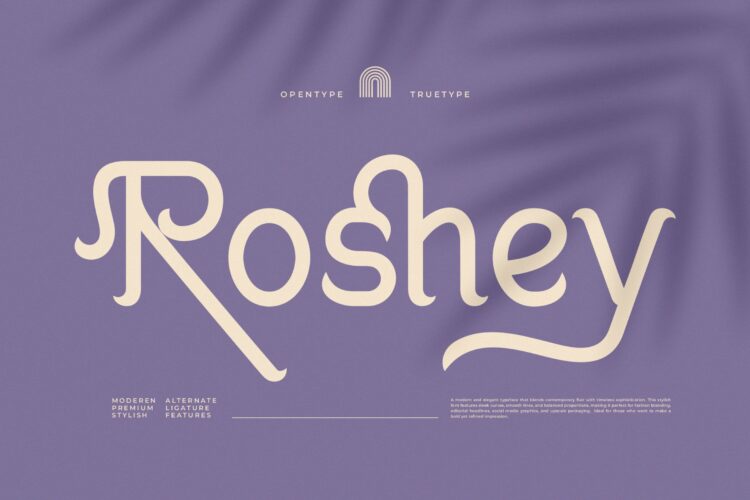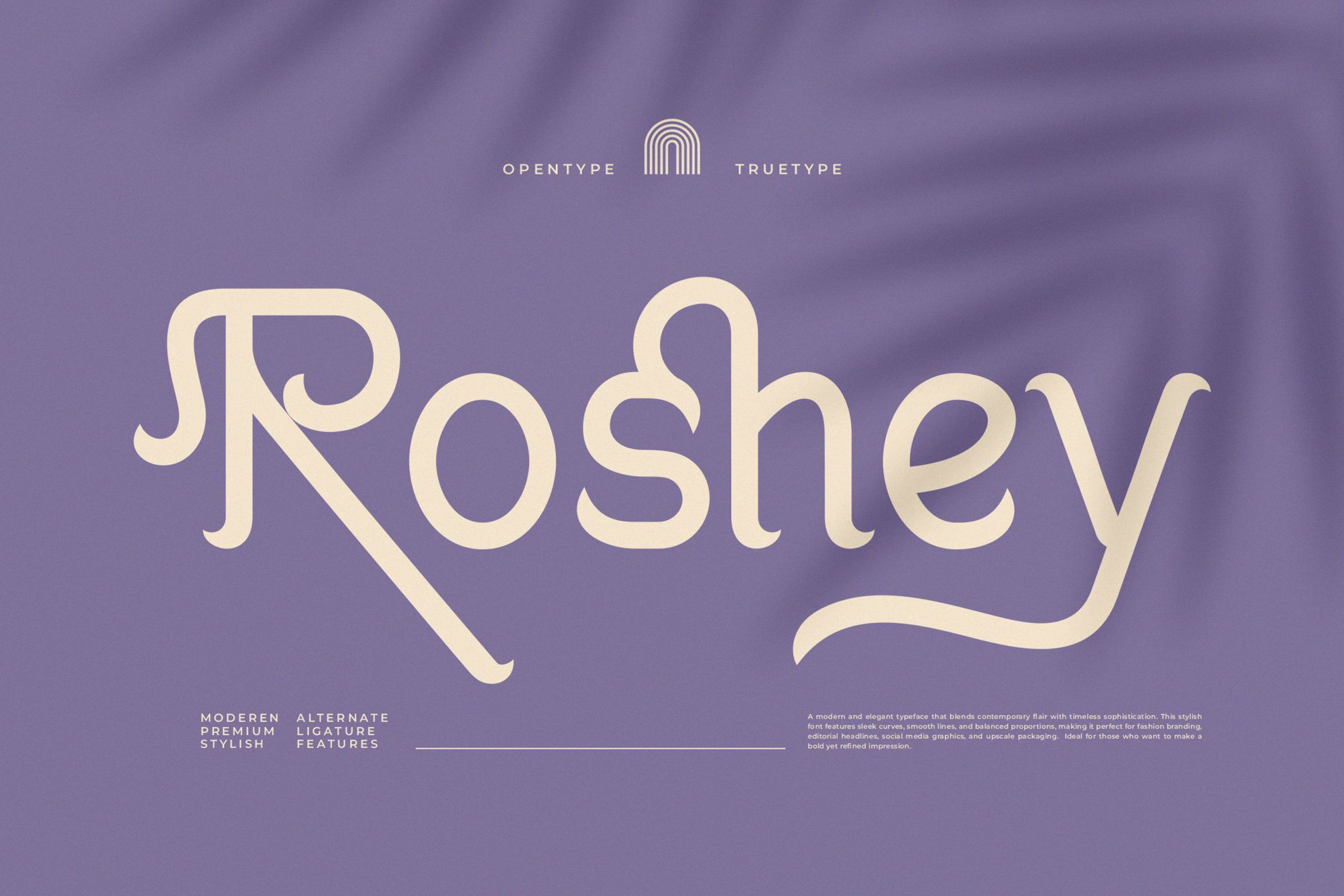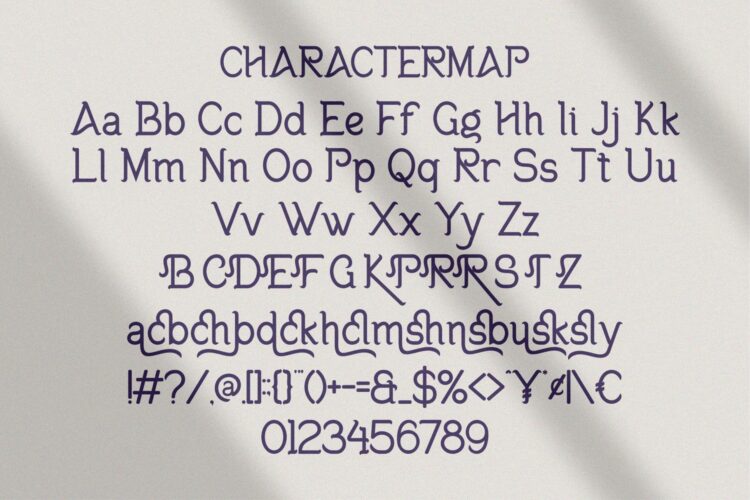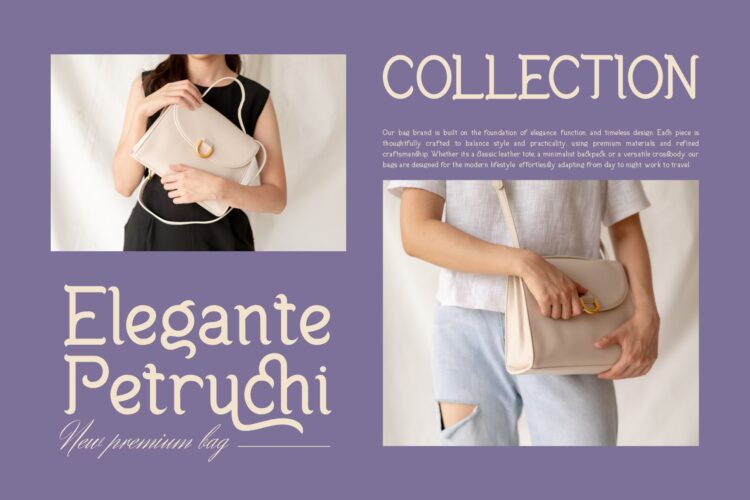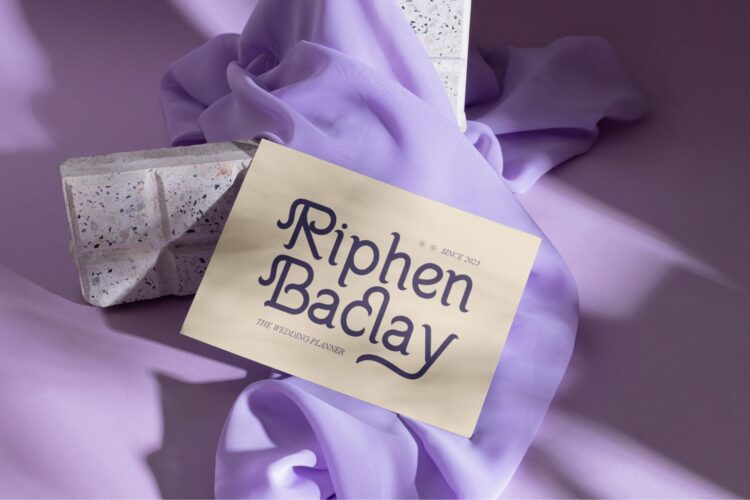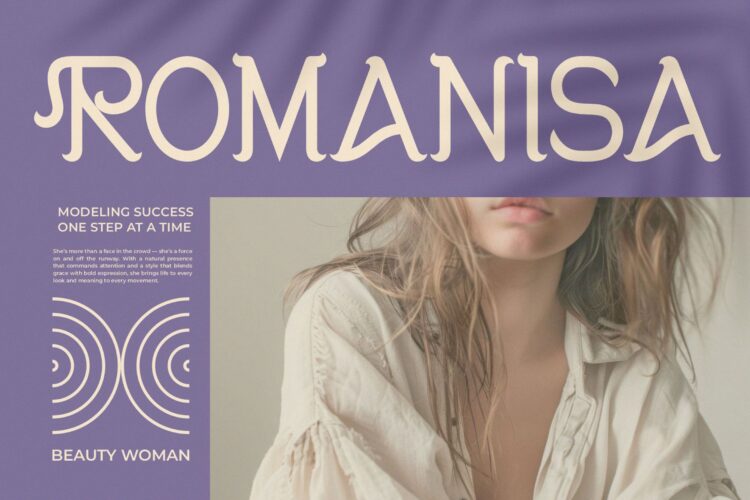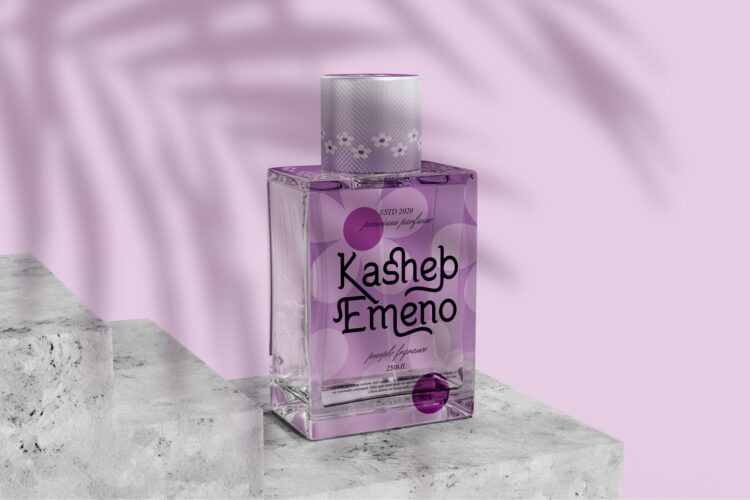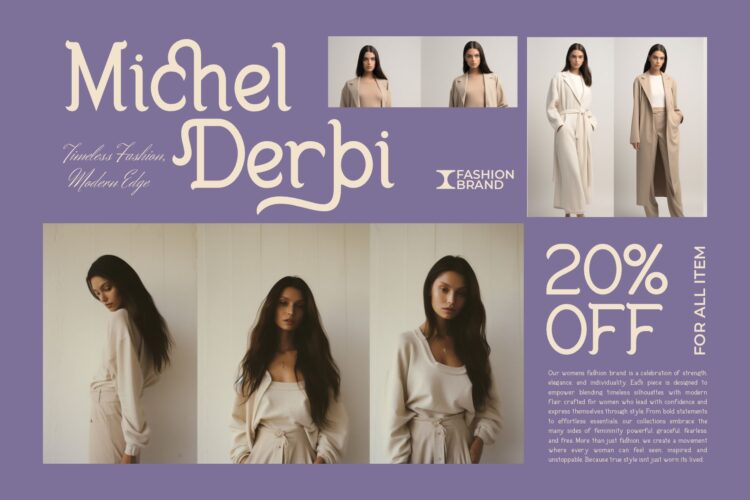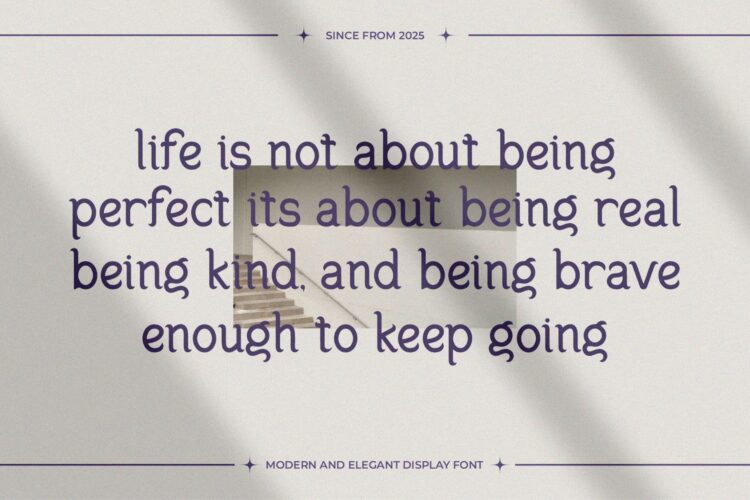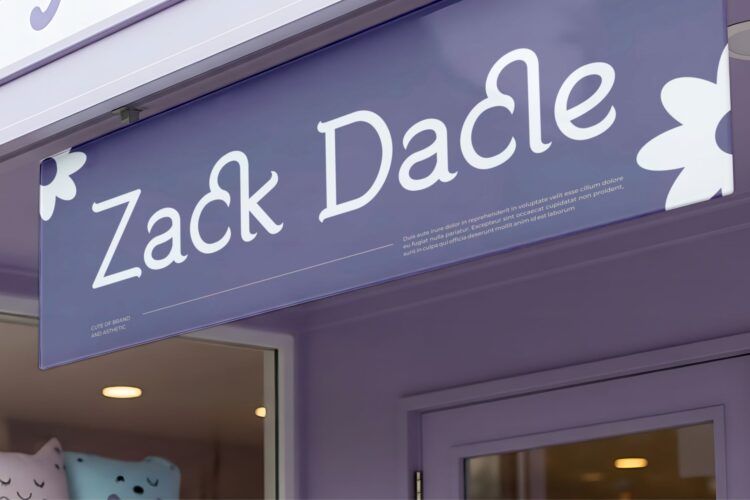
Roshey
Roshey Serif is a modern and classy font type for all branding and logo designs. This modern and classy Serif font has a beautiful character. This font is suitable for invitation card designs, cool logos, movie titles, movie names, business cards, book titles, brand names, and various other designs. Roshey Serif is a smooth serif font that exudes sophistication and the moment. Its stylish ligatures make this font a perfect partner for any project.
Roshey || Modern Elegant Serif Font